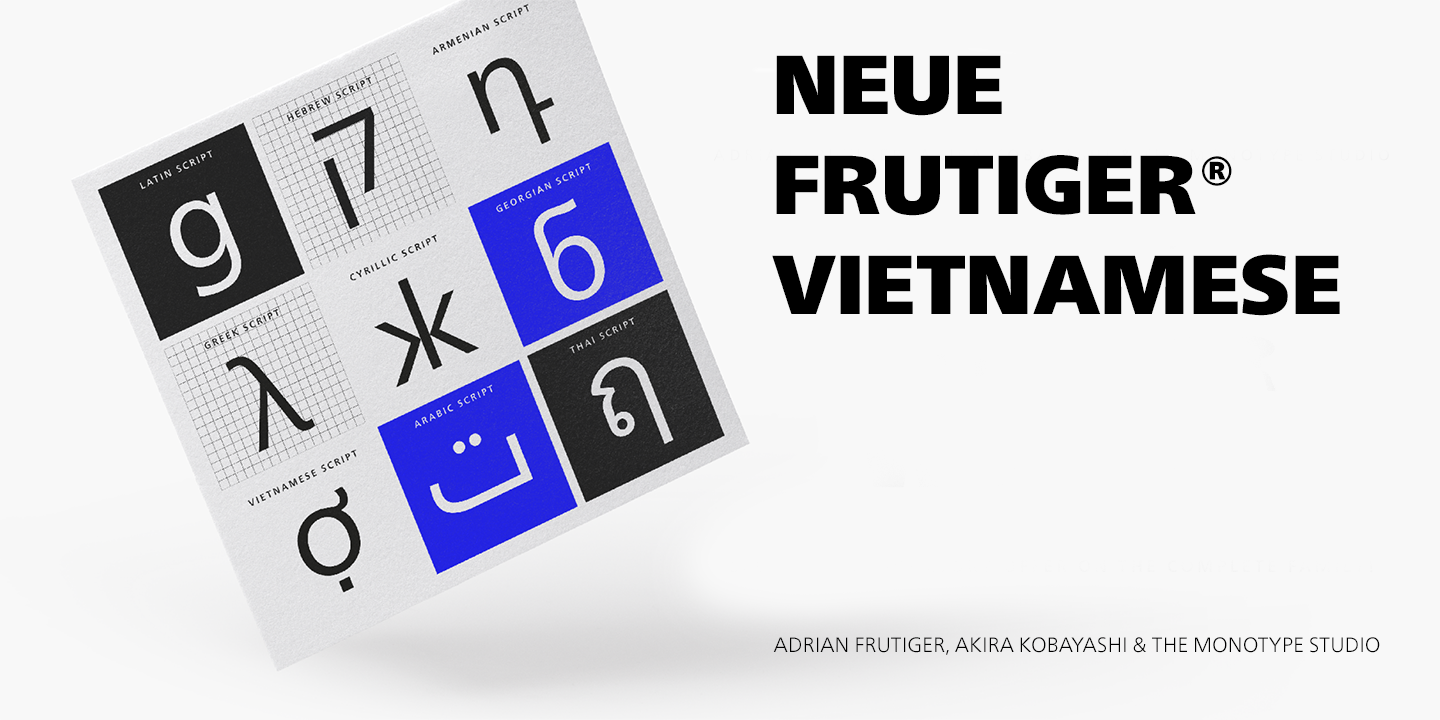
Neue Frutiger Vietnamese Font is an exceptional choice for projects demanding unparalleled clarity, warmth, and legibility, specifically optimized for the complexities of the Vietnamese script. It's perfectly suited for global branding that extends into Vietnam, digital interfaces, educational materials, comprehensive reports, and any application where precise rendering of diacritics and a consistent visual voice are paramount. Imagine it bringing crisp, readable content to a Vietnamese news website, ensuring all tonal marks are beautifully presented in an educational textbook, or providing a trustworthy and elegant appearance for a multinational corporation's presence in the Vietnamese market. Its thoughtful design, born from the renowned Frutiger legacy, ensures your message is conveyed with both efficiency and undeniable cultural sensitivity.
What makes Neue Frutiger Vietnamese Font so exciting is its masterful expansion of the beloved Frutiger typeface to seamlessly incorporate the rich and intricate characters of the Vietnamese alphabet. It addresses the unique typographic challenges of Vietnamese, providing a harmonious and legible solution that maintains the iconic warmth and clarity of the original design. This font isn't just about translating text; it’s about providing a consistent, high-quality brand experience across diverse linguistic landscapes, ensuring that the nuances of the Vietnamese language are respected and beautifully presented. It empowers designers and brands to communicate effectively and elegantly with Vietnamese-speaking audiences, bridging cultural and linguistic gaps with superior typography.
The Neue Frutiger Vietnamese Font family typically offers a comprehensive range of weights and styles to provide maximum design flexibility, mirroring the extensive options of its Latin counterparts. You can expect to find a broad spectrum from an UltraLight to an ExtraBlack weight, often accompanied by corresponding italic versions, providing a total of 20 distinct styles. This extensive range allows for sophisticated typographic hierarchies and ensures that whether you need subtle annotations or prominent headlines, the Neue Frutiger Vietnamese Font Free Download provides the foundational versatility to achieve a cohesive, elegant, and highly professional design across all your platforms.